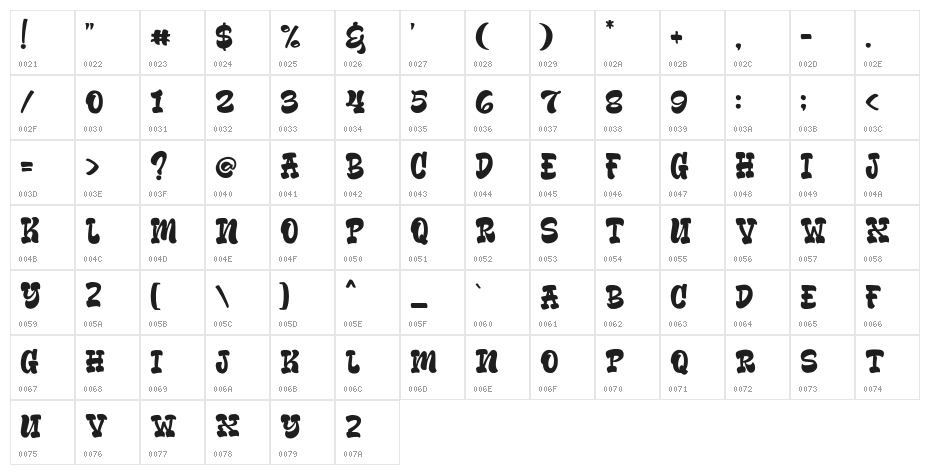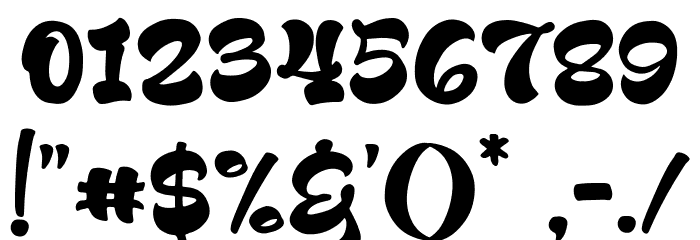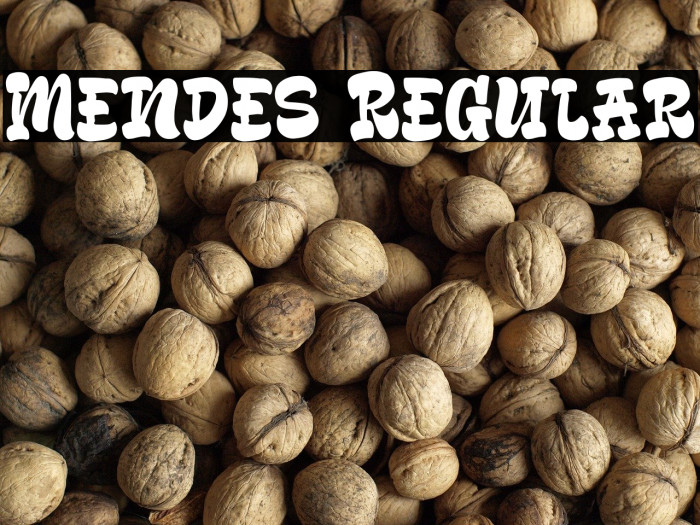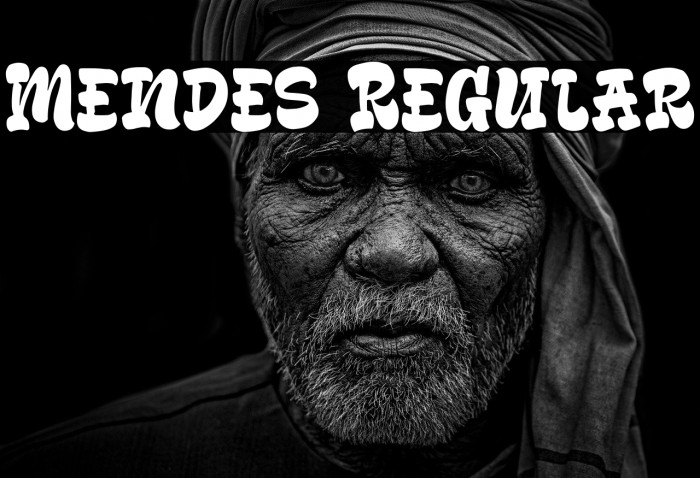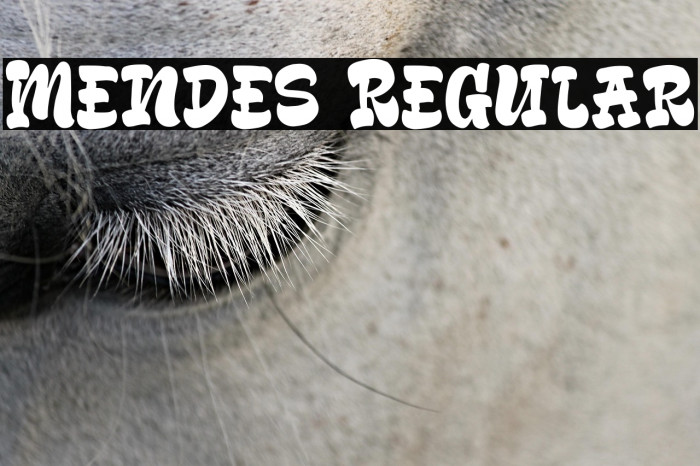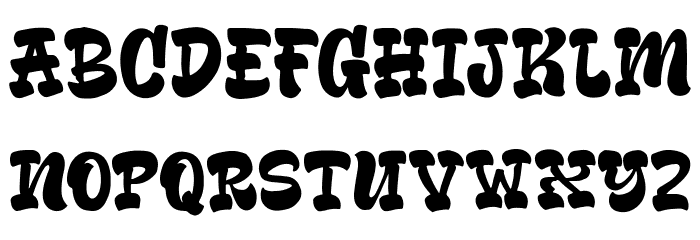
Mendes Regular Font
This font exhibits a bold, playful style with thick, rounded strokes and a whimsical flair. The characters are highly stylized, featuring exaggerated curves and a slightly condensed form. The uppercase and lowercase letters maintain a consistent weight, contributing to a cohesive appearance. The numbers and special characters share the same playful aesthetic, making them suitable for creative and informal designs. The overall look is dynamic and eye-catching, ideal for projects that require a touch of fun and creativity.
| Proposed Projects | Ideal for children's books, playful branding, party invitations, and creative posters. |